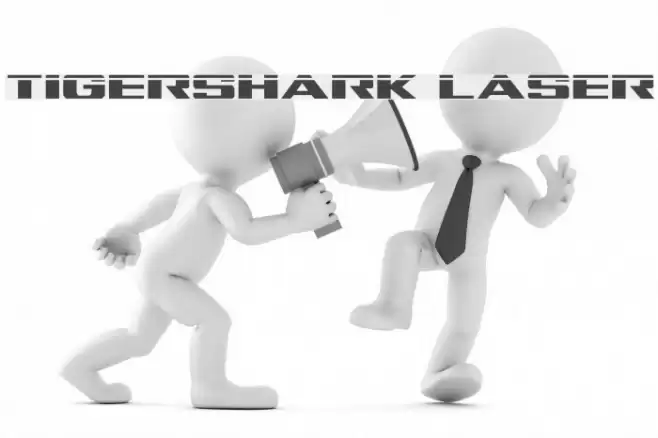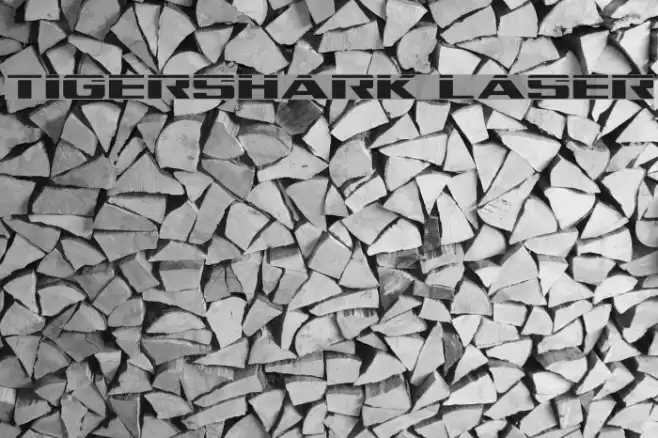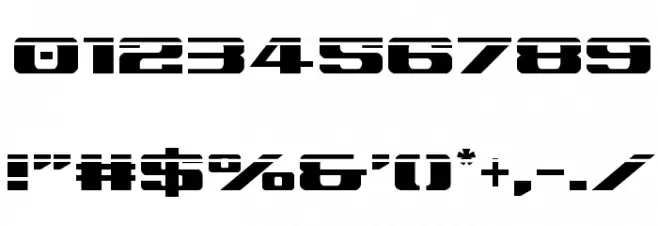
Tigershark Laser Font
Tigershark Laser Description
This font features a bold, futuristic design with a strong geometric influence. The characters are constructed with sharp, angular lines and a blocky appearance, giving it a distinct and modern look. The uppercase and lowercase letters maintain a consistent style, with the uppercase being slightly more pronounced. The numbers and special characters follow the same design principles, ensuring uniformity across all glyphs. The font's unique style makes it stand out, ideal for projects that require a bold and impactful visual statement.
A bold, futuristic font with sharp, angular lines and a geometric design from Uncategorized fonts.
- Proposed Projects: Ideal for sci-fi themed projects, video game titles, tech branding, and futuristic posters.
- Overall Style: Futuristic